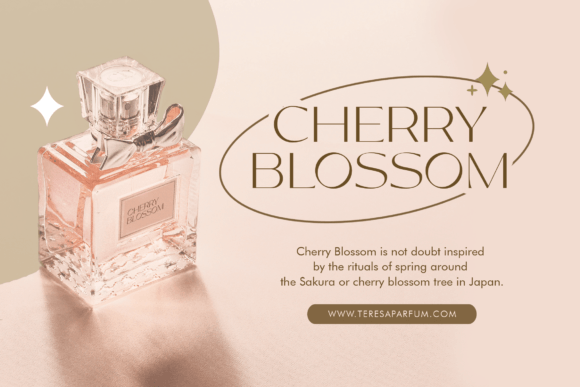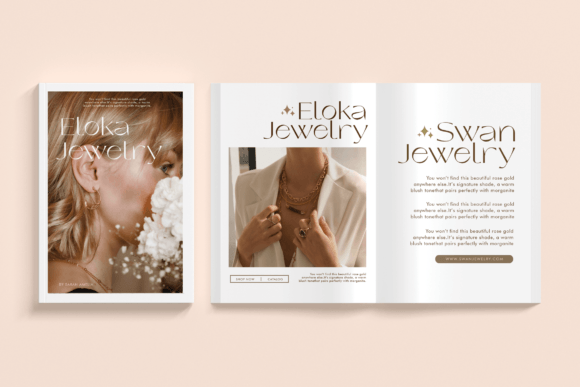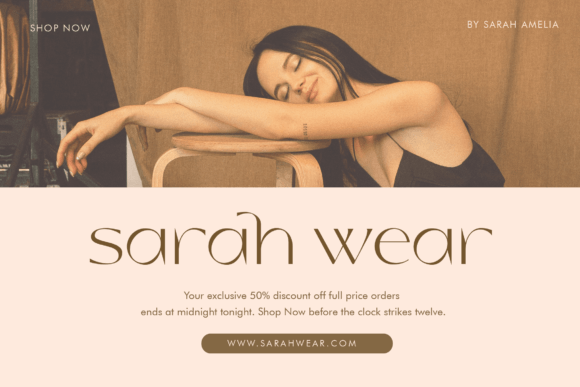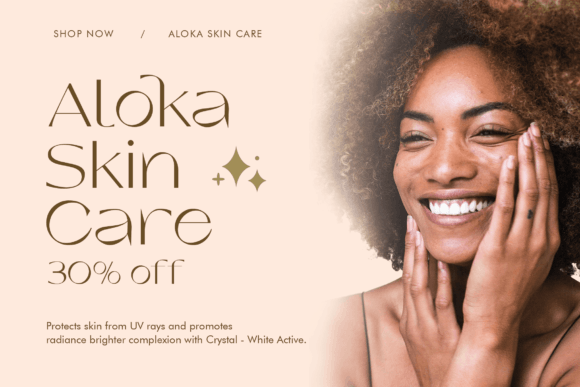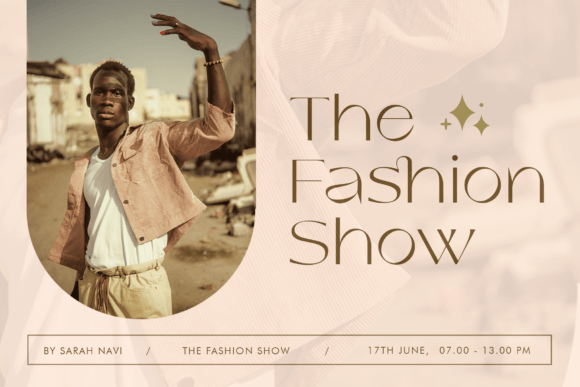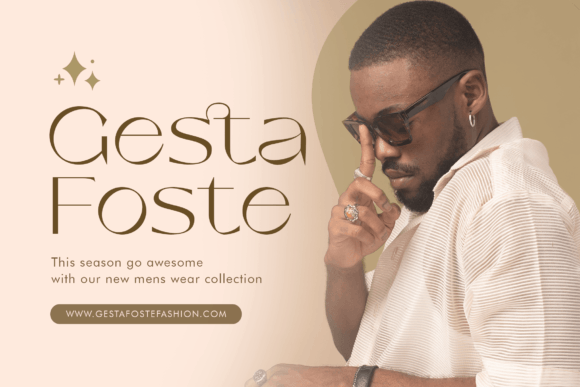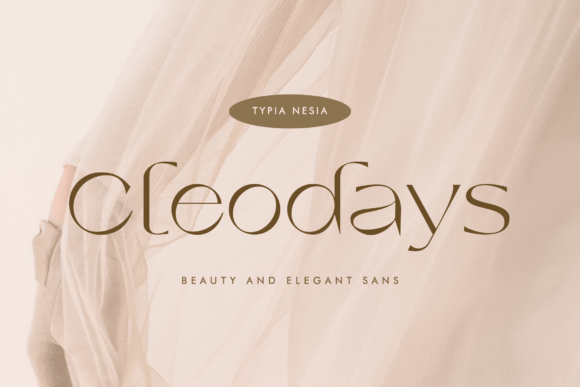
Cleodays Font: Elevate Your Design with Elegance and Sophistication
In the world of typography, a font can make or break the visual identity of a brand. For designers and crafters seeking to create stunning, high-end designs, Cleodays Font is an exceptional choice. This beautiful, elegant, and aesthetic expanded sans serif font is specifically designed to bring a touch of sophistication and femininity to various projects.
What is Cleodays Font?
Cleodays Font is a carefully crafted typeface that exudes luxury and refinement. Its expanded sans serif design provides a clean and modern look, while its elegant aesthetic makes it perfect for designs that require a touch of sophistication. Whether you’re working on a luxury logo, branding, editorial design, or promotional materials, Cleodays Font is an excellent choice.
Key Features of Cleodays Font
- Alternates and Ligatures: Cleodays Font comes with a range of alternates and ligatures, allowing you to experiment with different typography combinations to create the perfect design.
- Expressive and Feminine: The font’s elegant design and refined aesthetic make it perfect for projects that require a touch of femininity and sophistication.
- Expanded Sans Serif: The font’s expanded sans serif design provides a clean and modern look, making it suitable for a wide range of design applications.
Use Cases for Cleodays Font
Cleodays Font is an incredibly versatile typeface that can be used in various design projects, including:
- Luxury Logo and Branding: Create a lasting impression with a sophisticated logo and branding design that exudes elegance and refinement.
- Classy Editorial Design: Elevate your editorial design with a font that adds a touch of sophistication and elegance to your content.
- Woman Magazine: Create a stunning magazine design that speaks to your audience with a font that embodies femininity and elegance.
- Cosmetic Brand: Develop a strong brand identity with a font that conveys luxury, sophistication, and beauty.
- Fashion Promotional: Create eye-catching promotional materials that showcase your brand’s style and elegance.
- Art Gallery Branding: Develop a unique brand identity for your art gallery with a font that adds a touch of sophistication and culture.
- Museum and Historical Architecture: Create a lasting impression with a font that conveys history, elegance, and refinement.
- Boutique Branding: Develop a strong brand identity for your boutique with a font that embodies luxury, sophistication, and style.
- Stationery Design: Create beautiful stationery designs that showcase your brand’s elegance and refinement.
- Blog Design: Elevate your blog design with a font that adds a touch of sophistication and elegance to your content.
- Modern Advertising Design: Create stunning advertising designs that grab attention with a font that conveys luxury and sophistication.
- Card Invitation: Create beautiful card invitations that showcase your brand’s elegance and refinement.
- Art Quote: Add a touch of sophistication and elegance to your art quotes with a font that embodies creativity and refinement.
- Home Decor: Create stunning home decor designs that showcase your brand’s style and elegance.
- Book/Cover Title: Develop a strong book cover design with a font that conveys luxury, sophistication, and elegance.
- Special Events: Create memorable special event designs that showcase your brand’s elegance and refinement.
Why Choose Cleodays Font?
Cleodays Font is an exceptional choice for designers and crafters seeking to create high-end designs that exude elegance and sophistication. With its expanded sans serif design, alternates, and ligatures, this font provides endless possibilities for creative typography. Its versatility makes it suitable for a wide range of design applications, from luxury branding to editorial design.
In conclusion, Cleodays Font is a stunning, elegant, and aesthetic typeface that can elevate your designs to new heights. Its refined design, alternates, and ligatures make it perfect for creating sophisticated and feminine designs that convey luxury and elegance. Whether you’re a designer or crafter, Cleodays Font is an excellent choice for your next project.